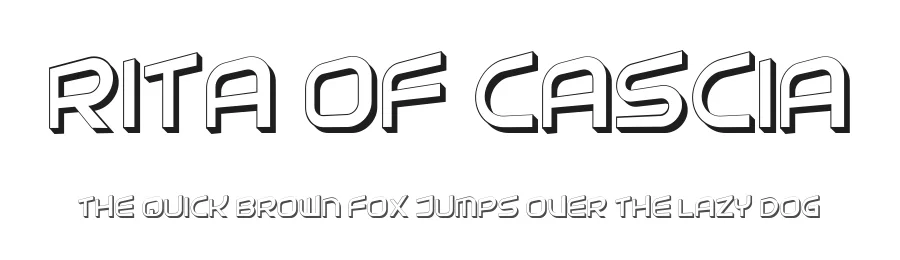
About Filirator Font
Filirator is a decorative font designed by Joachim Frank. It includes 108 glyphs, a regular weight, TTF (TrueType) format, and 111 languages. Filirator is free to download; check the license details on this page before commercial use. Decorative fonts like Filirator work best for logos, posters, packaging, and standout headlines.
Filirator Font
Filirator Font is a decorative typeface by Joachim Frank, ideal for logos, invitations, branding, and creative projects.